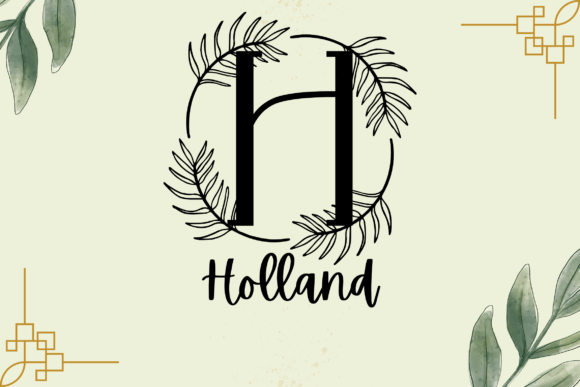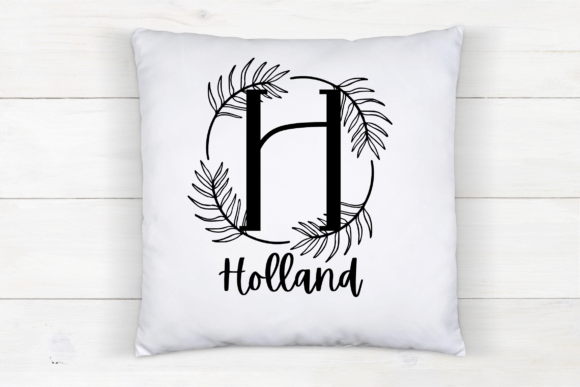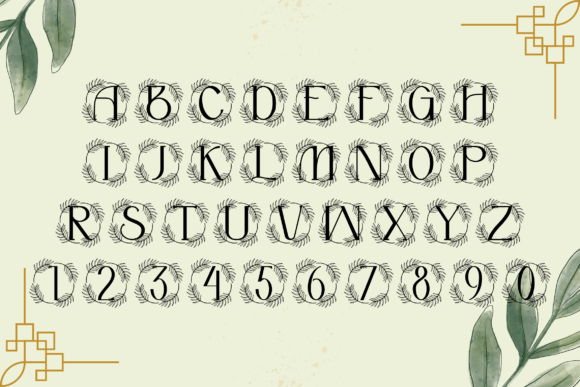
Introduction to Crestelle Monogram Font
Have you ever found yourself lost in a sea of creativity, searching for the perfect font to elevate your project? Perhaps you’re crafting a wedding invitation, designing a logo for a luxury brand, or simply looking for a unique touch to add to your personalized stationery. Whatever your creative pursuit, you know that the right font can make all the difference. That’s where the Crestelle Monogram Font comes in – a stunning serif monogram font that combines elegance, sophistication, and a touch of whimsy.
With its refined botanical-inspired accents and structured serif base, the Crestelle Monogram Font is the perfect choice for designers and crafters looking to add a touch of luxury to their projects. Whether you’re working on a high-end branding project or a more intimate, personal piece, this font is sure to deliver. And the best part? It’s incredibly versatile, making it an invaluable resource for any design project.
Key Features of Crestelle Monogram Font
- Unique monogram font with intricate details, ideal for personalizing gifts or branding
- Perfect for designers, artists, and crafters looking for a unique and elegant design resource
- Can be used for a variety of creative projects, including invitations, logos, and custom artwork
Honest Review: Crestelle Monogram Font
I recently had the chance to work with the Crestelle Monogram Font, and I must say it’s been a game-changer for my creative project. This font is perfect for adding a touch of elegance and sophistication to any design.
- ✨ High quality design: The Crestelle Monogram Font is meticulously crafted, resulting in a clean and professional look.
- ⚠️ Limited font styles: The Crestelle Monogram Font is only available in a single style, which may not be suitable for all design projects.
- ⚠️ Limited character set: The font’s character set is limited, which may cause issues when working with specific characters or languages.
Overall, I’m thoroughly impressed with the Crestelle Monogram Font. It’s a fantastic design resource that can elevate any creative project. While it may have some limitations, the benefits far outweigh the drawbacks.
The Crestelle Monogram Font is ideal for a variety of creative projects, including wedding invitations, party decorations, and personal branding materials. It’s also a great resource for designers who want to add a touch of elegance and sophistication to their designs.